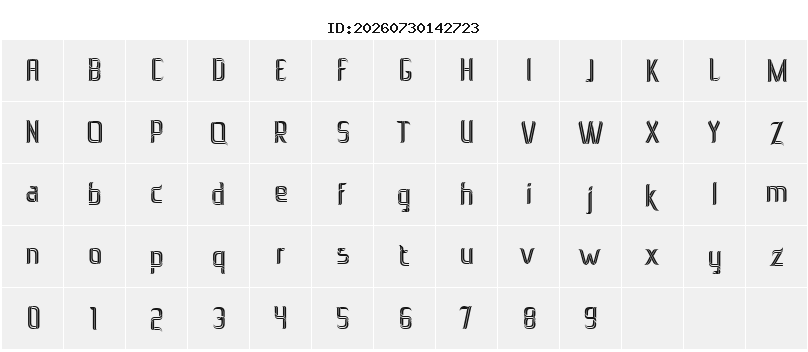
• Font Name: loveleaves
• Designer: Azmi Kamarullah
About loveleaves.ttf
loveleaves.ttf is a modern, elegant sans-serif font designed for ultimate readability and visual harmony. Perfect for branding, headlines, web design, and print materials.